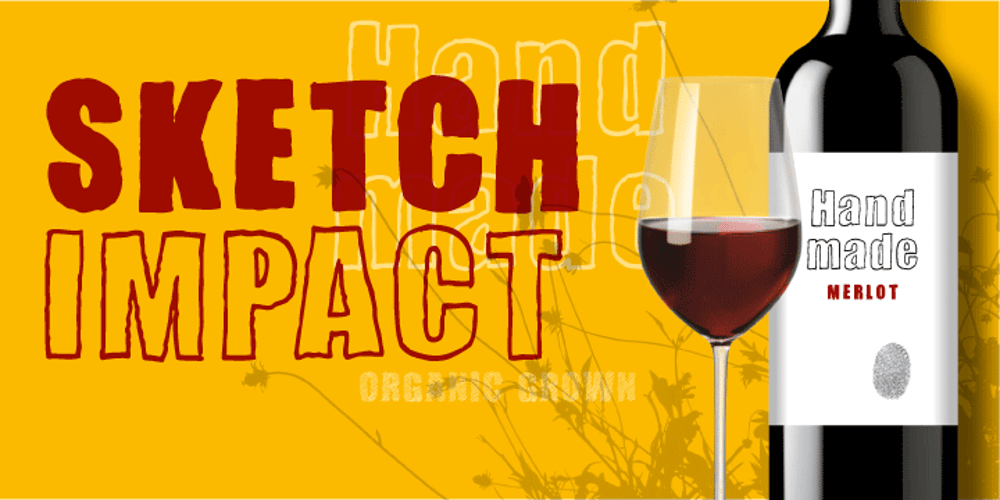
Sketchimpact Font Family was designed by Florian Zietz and published by Librito.de. Sketchimpact contains 3 styles and family package options. The design for the font “sketchimpact” is based upon the typeface Impact. The font family consists of three different versions: solid, outline and lines.